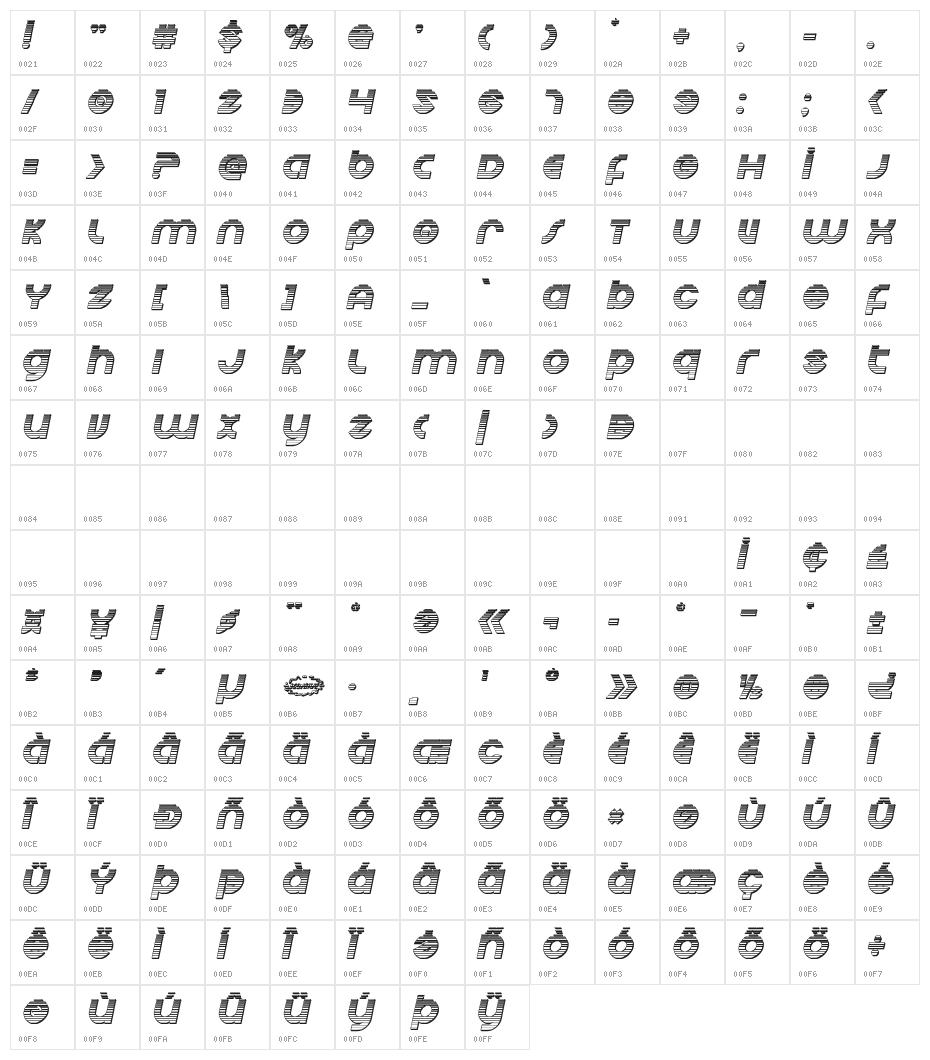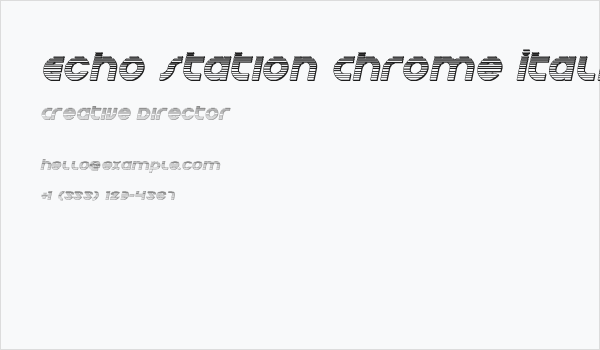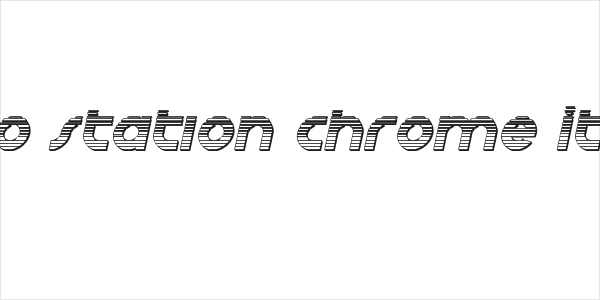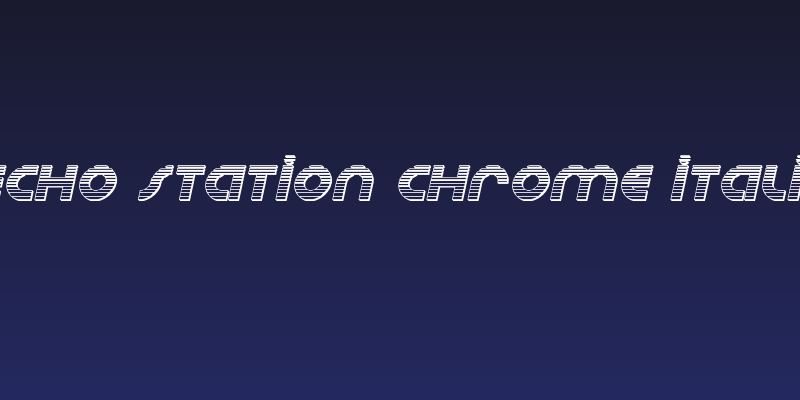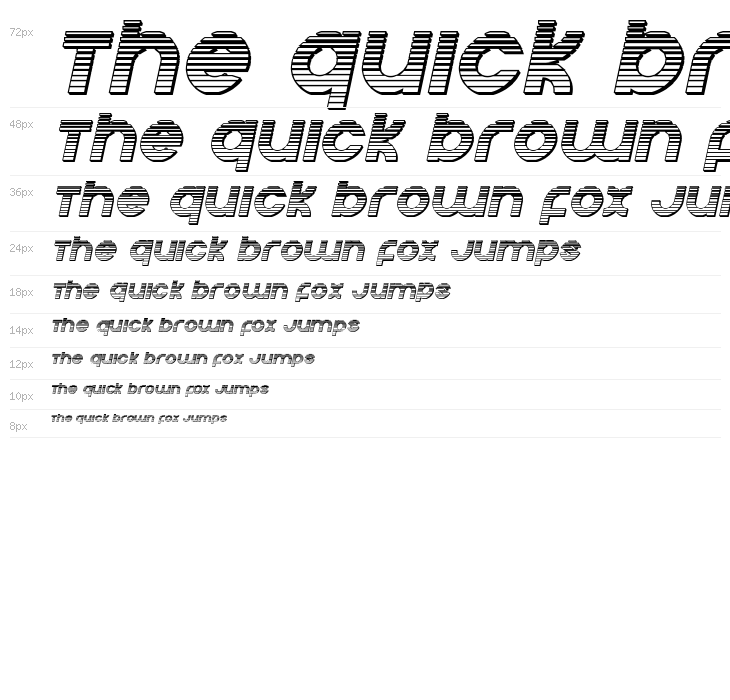
Echo Station Chrome Italic Font
Echo Station Chrome Italic Description
This font features a bold, futuristic design with a distinct striped pattern running through each character, giving it a chrome-like appearance. The italic slant adds a dynamic and forward-moving feel, enhancing its modern aesthetic. The uppercase and lowercase letters maintain a consistent style, with rounded edges and a geometric structure. Numbers and special characters are also designed with the same striped effect, ensuring uniformity across all elements. This font's unique style makes it stand out, perfect for projects that require a bold and innovative look.
| Overall Style | Futuristic, Modern |
| Proposed Projects | Ideal for sci-fi themed designs, tech branding, video game titles, and futuristic posters. |